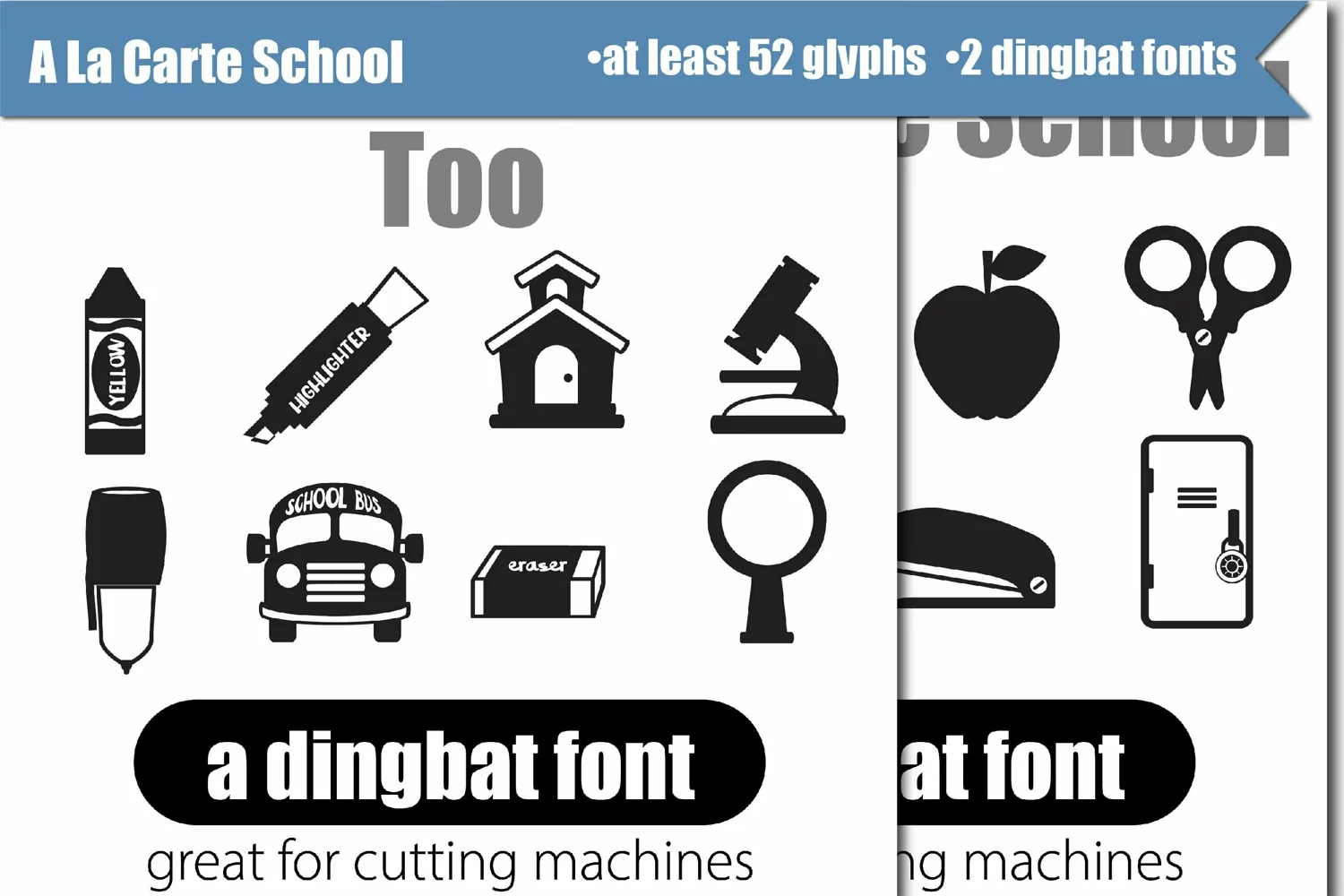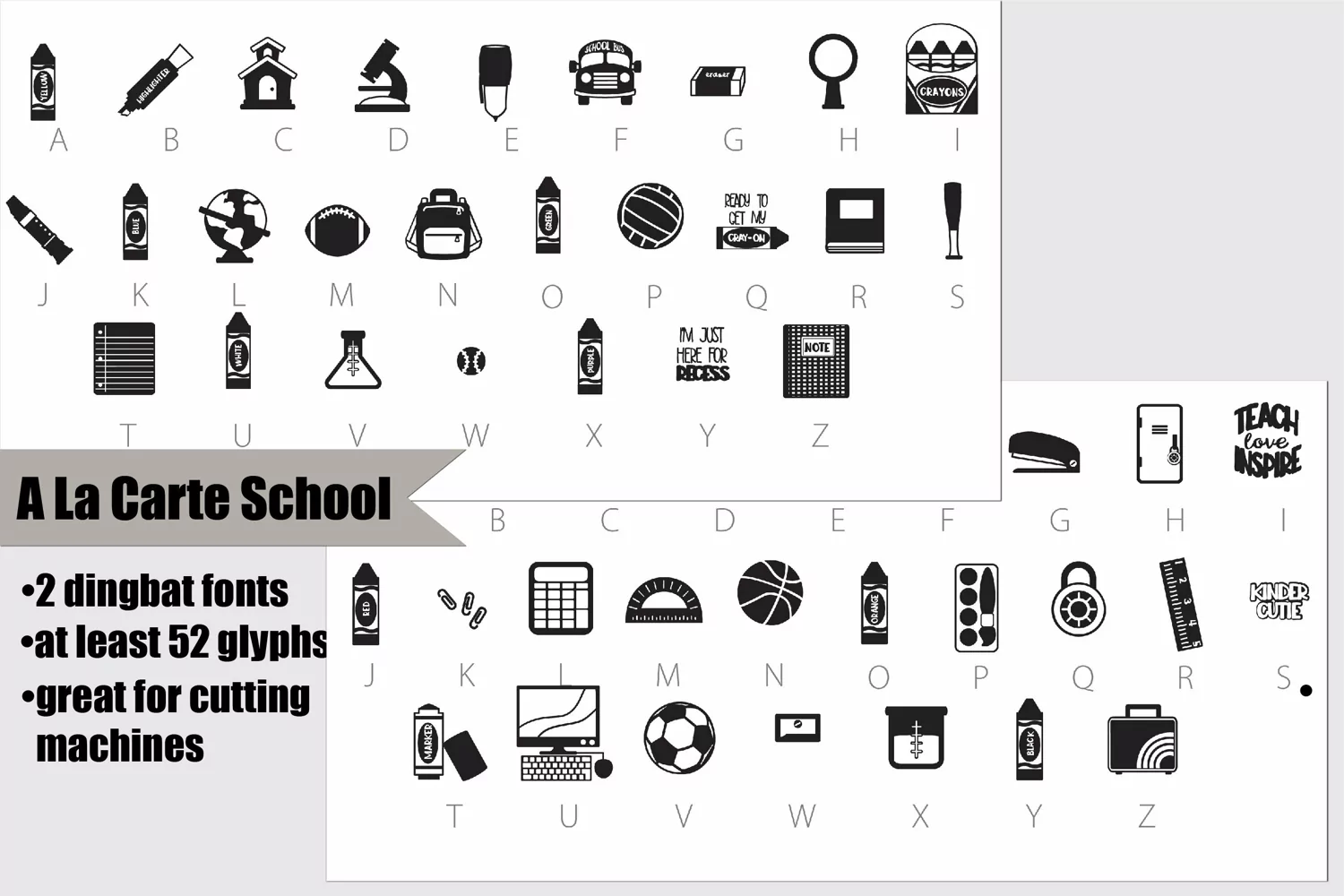
There are two dingbat fonts in this A La Carte bundle. One has 26 school supplies and the other has imagery associated with going to school. Each has at least 26 glyphs. Perfect for vinyl and cutting machines!